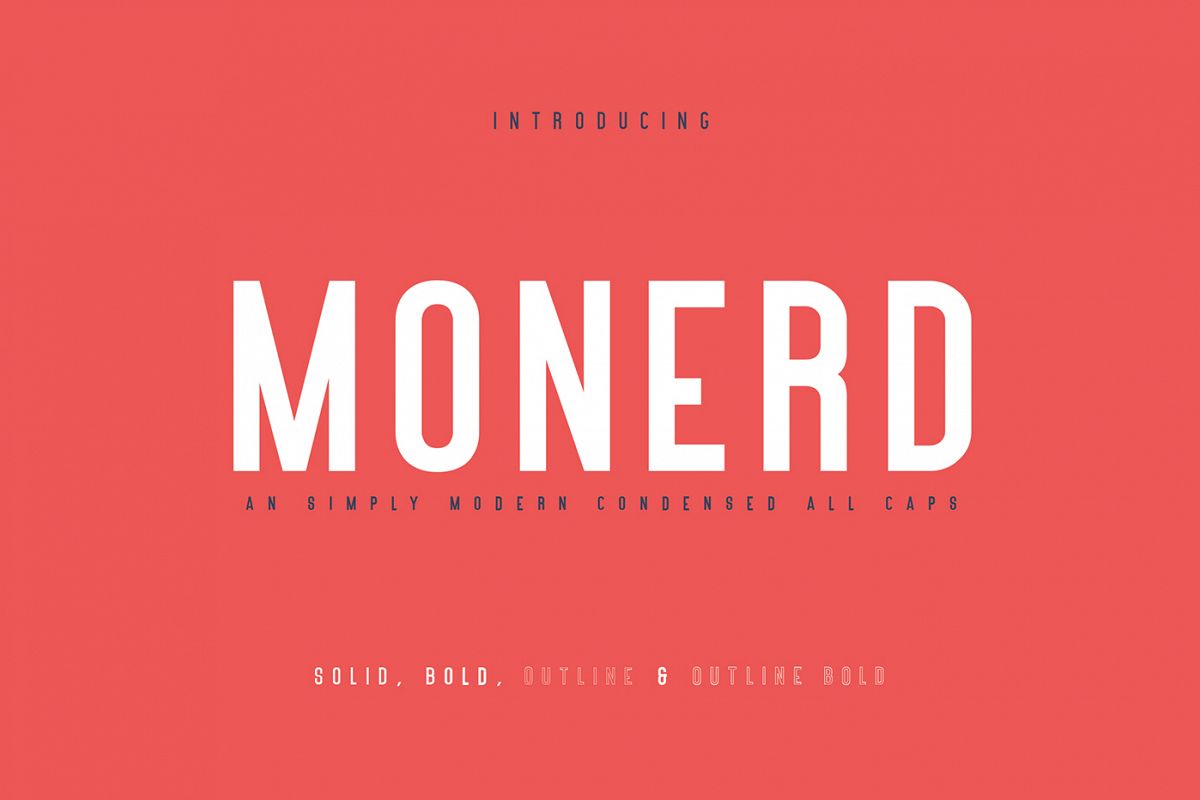
Monerd is a bold sans serif with outline, outline bold & solid font files. Monerd Sans is the improved of the previously Serrona Typeface. Monerd Sans is perfectly suited to branding, logos, magazines, films, website, headlines, titles, captions, games, apps, posters, t-shirts and more.This font available: